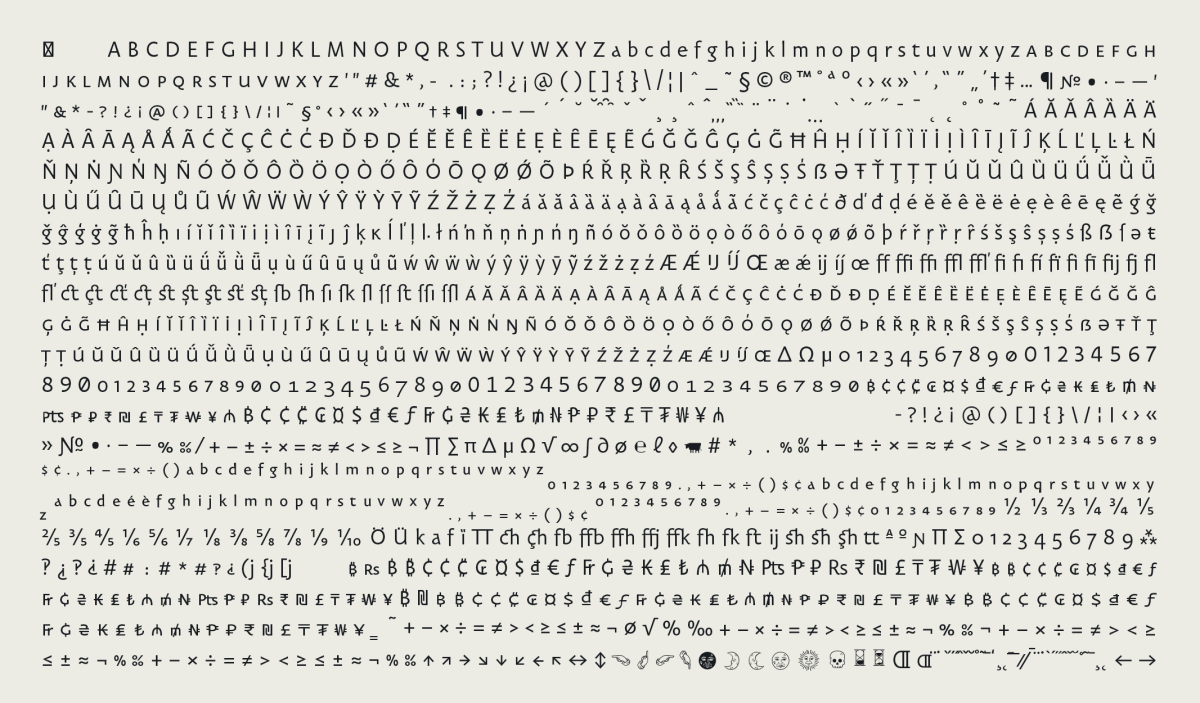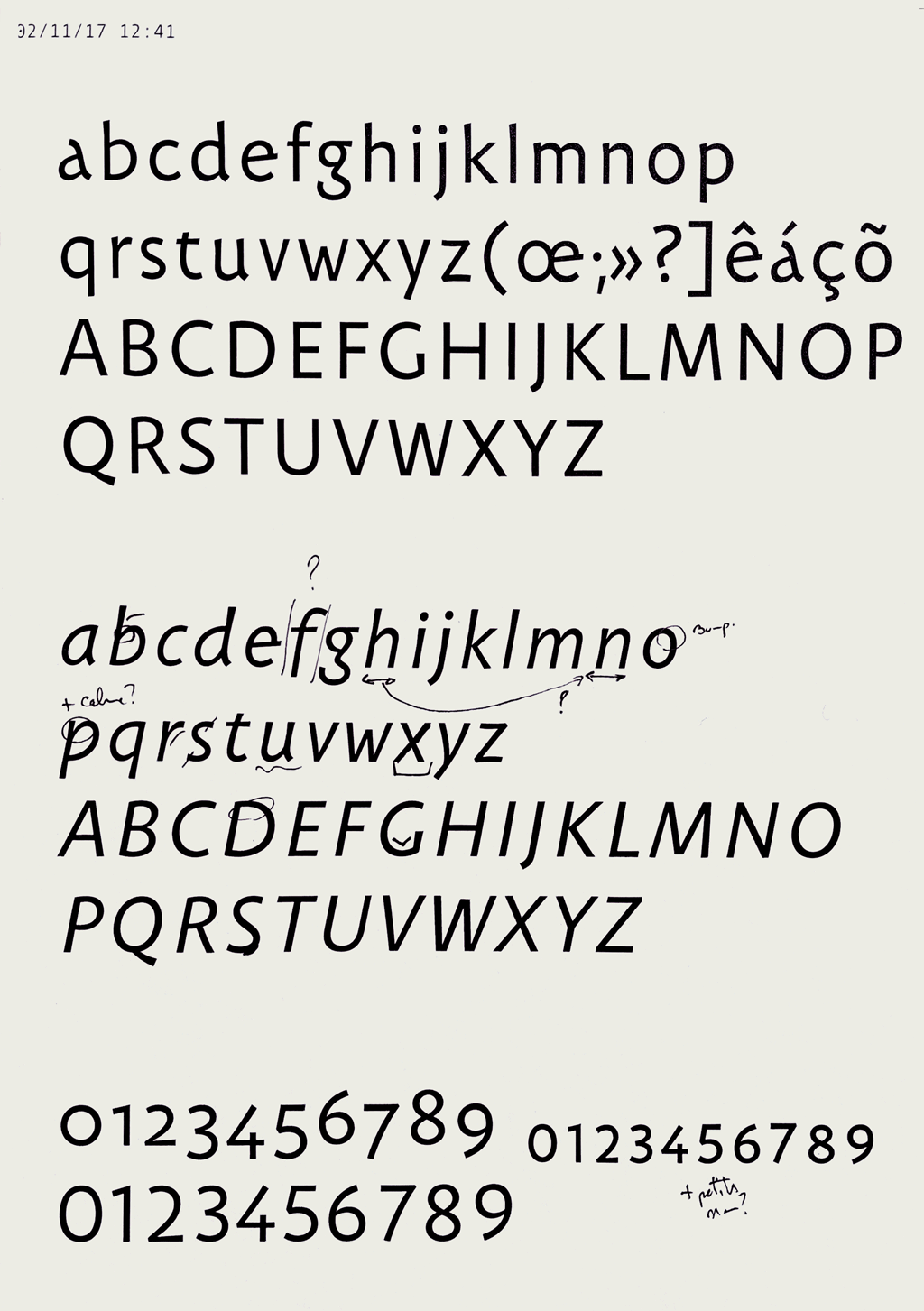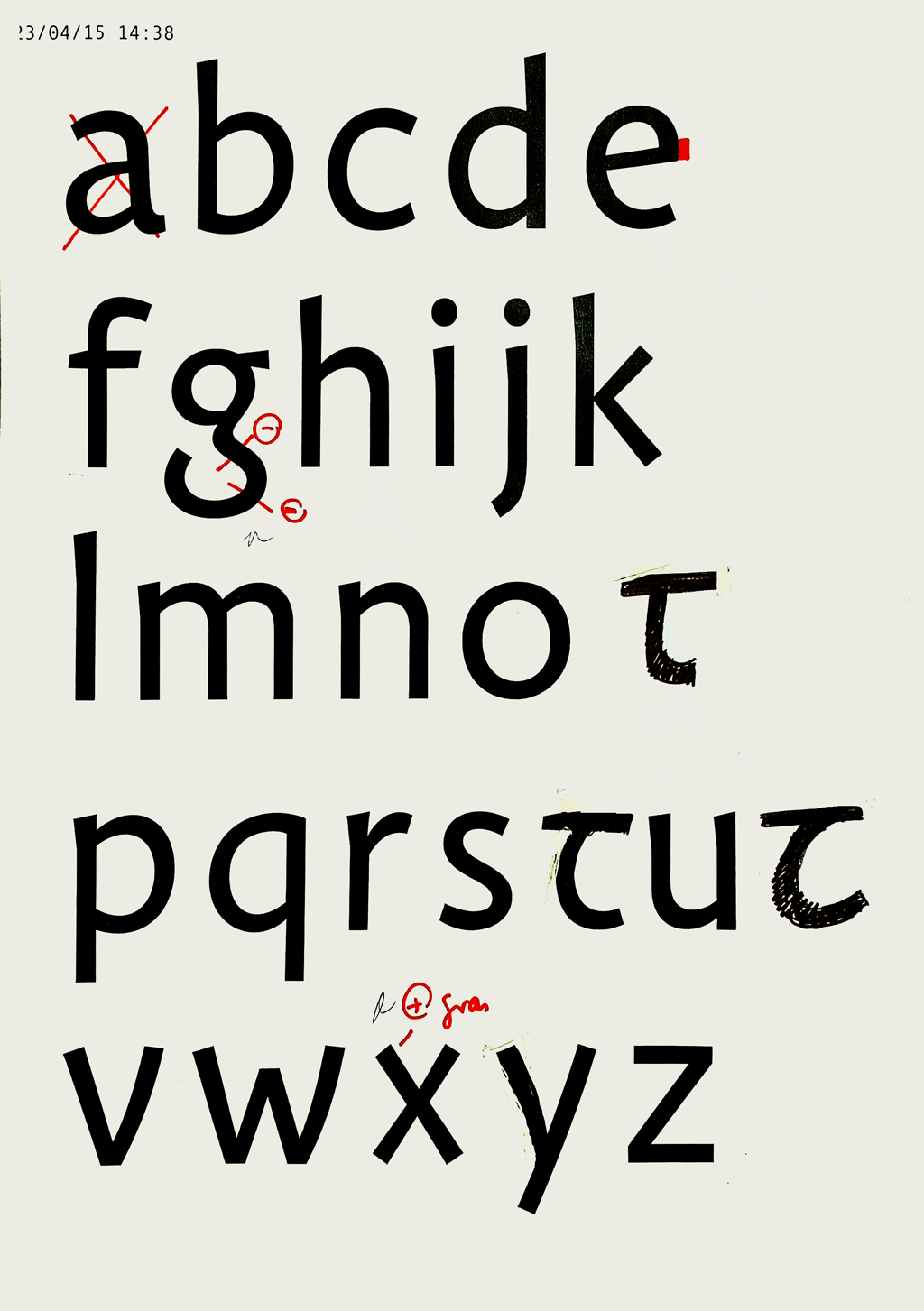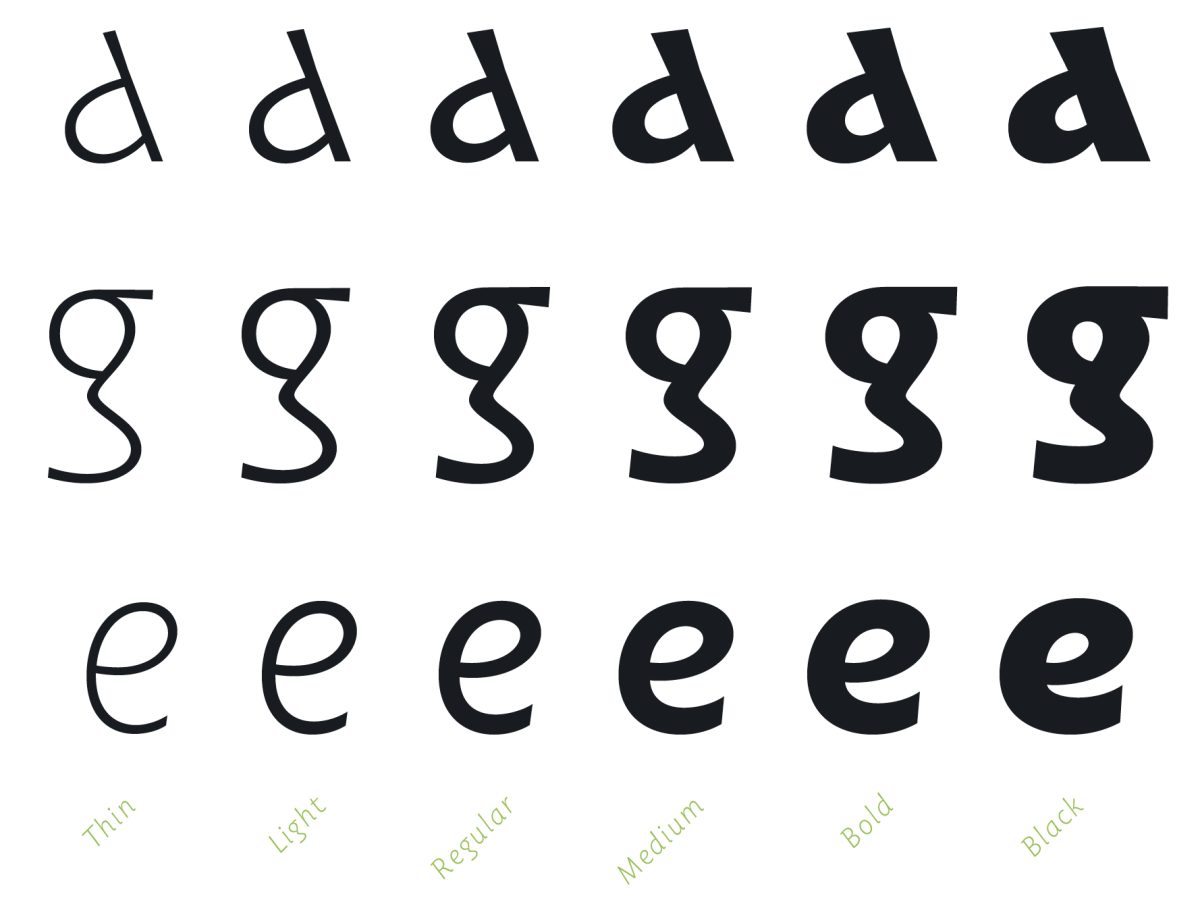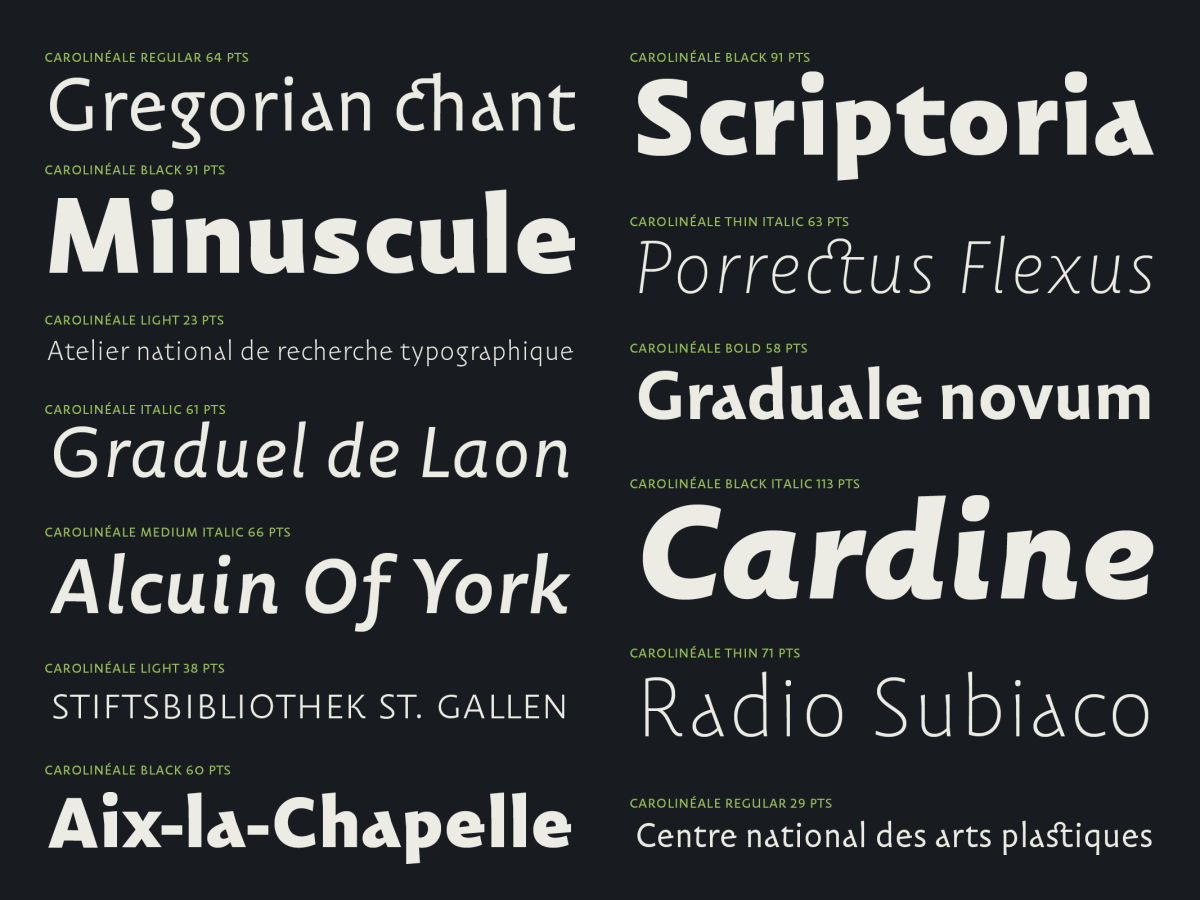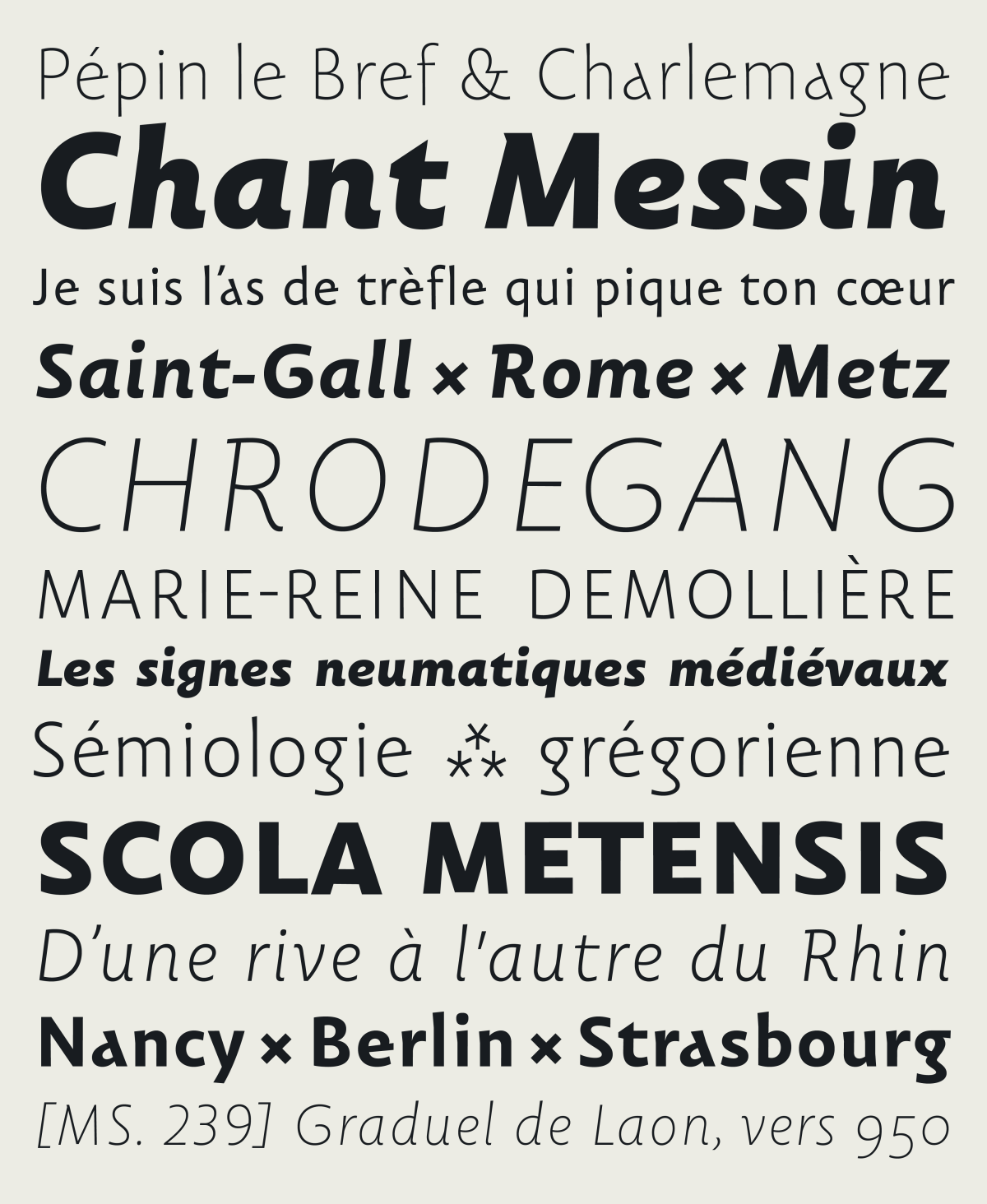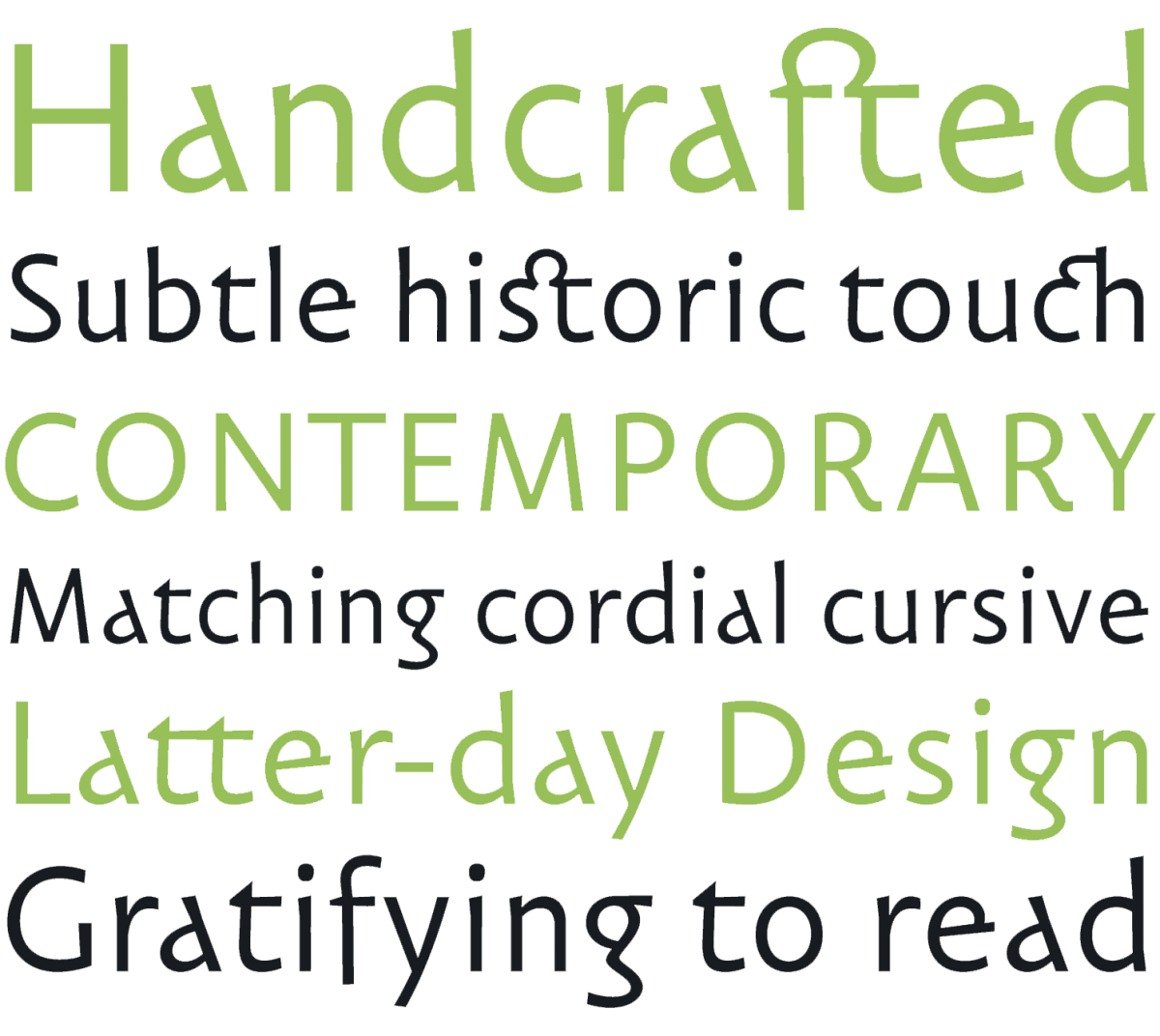
The design of Carolinéale, a humanist sanserif inspired by medieval chant books
Carolinéale is a typeface family whose design I started at the end of 2014, when I integrated the Atelier National de Recherche Typographique, in Nancy (FR). I had then the project to work on a typographic version of Carolingian musical notations. The alphabetical typeface associated with this work has evolved since then. Thanks to the support of the Centre National des Arts Plastiques (FR) and the sharp eye of Alejandro Lo Celso, I was able to create a complete typeface family. On the occasion of its publication by PampaType, I would like to come back to the principles that guided the design of its forms.
A source
The Carolingian manuscripts of Gregorian chant present on their pages mysterious signs, inscribed above the Latin text. These are the earliest forms of melody notation. These more than thousand-year-old signs, called neumes, are still used today. Their computer-assisted composition is a real typographical challenge, our digital tools not being at all adapted to this type of inscription. When I started my post-Masters at the ANRT, my project was to find a typographic solution to resolve this situation with elegance and consistency.
A double page of the manuscript MS. 239, called “Graduel de Laon”, copied around 950. Text in Latin [Caroline minuscule] and melodic notation in neumes called “Messins”.
I then proposed a more contemporary typographical interpretation of musical signs (more precisely of the signs known as “Metz” and “Saint-Gall”), inspired by the Carolingian layout, but also by their current version, most often drawn in felt-tip pen or in a ballpoint pen. I then digitized everything, integrated the thing into a typographic file respecting a precise nomenclature, in order to be able to compose with the character in a software dedicated to the engraving of scores: Grégorio 1.
Left: some musical signs designed at the ANRT in 2015 [St-Gall notation system]. Right: Carolingian signs traced with a contemporary tool; a whiteboard used during a Gregorian chant course, Metz.
In the same movement, I decided to accompany the neumes with an alphabetic character based on similar principles: historical structure, monolinear approach. Both a Caroline minuscule and a sanserif (“linéale” in French); it was the birth of Carolinéale. 2
A script
The text of the ninth-century chant manuscripts is written in remarkable form. The calligraphy used is relatively recent for the time. It is called Caroline minuscule, since it is Charlemagne who is at the initiative.
Page from the Versicularium, Hymnary, Tropary, Sequentiary copied around 930, St. Gallen, Stiftsbibliothek, Cod. Blood. 381.
Developed slowly, the Caroline minuscule only found its stability in the 9th century, gradually getting rid of the presence of Merovingian characters. With the rise of the Carolingian scriptoria, writing improved its readability and spread beyond the borders of the empire. The calligraphic origin of this scriptural form draws its sources from the uncial and semi-uncial writings that precede it.
The Caroline minuscule at its height is alternately accompanied by roman and rustica capitals and uncial letters. The period is sometimes placed halfway up the x-height, there is no dot over the i, but the question mark, the quotation marks and the comma are integrated. Left: folio 438 of the Granval Bible, copied in the Abbey of Saint Martin of Tours between 825 and 850. Image taken from Claude Mediavilla, Caligrafía, Campgràfic, Valencia 2005 [p.141].
A roman
The roman font of Carolinéale is based on the most symptomatic forms of the Carolingian minuscule. More precisely, is based on the writing of the scriptoria manuscripts of the Rhine basin, produced between the 9th and 10th centuries.
First digital sketches : April 2015 - ANRT, Nancy.
Fine-tuning of italics, St. Gallen, November 2017.
I tried to offer a monolinear and subjective interpretation, which seeks to keep its DNA, while remaining as stable, readable and contemporary as possible. The Carolineal glyphs all have in their constructions a more or less present trace of a handwritten origin. Each sign seeks to find a satisfactory point of balance, somewhere between the vocabulary of a contemporary sanserif and that of medieval calligraphy.
Carolinéale Regular with some ligatures.
Some strong characteristics of the Carolingian design have been preserved. For example, the diagonal angle of letter a is very pronounced, and the design is clearly stopped at the height of the x. The g also remains medieval in its construction, unfolding “against the grain” of a modern binocular g in its lower part. Finally, it should also be noted that letter e retains a protruding crossbar, a pen stroke often absent from sanserifs.
Other more discreet Carolignian elements are also integrated: the ascenders and descenders are slightly marked at their ends, as are the shafts of certain letters at the x height.
2. I owe this name to Gerard Unger, the renowned Dutch type designer, who slipped it to me while he was attending my presentation at the end of my post-Masters at the ANRT. ↩
3. The concept is purely typographical and was introduced at the very end of the 15th century by Francesco Griffo da Bologna. ↩
4. One thinks in particular of the work of Frederic W. Goudy on his Goudy Sans. ↩